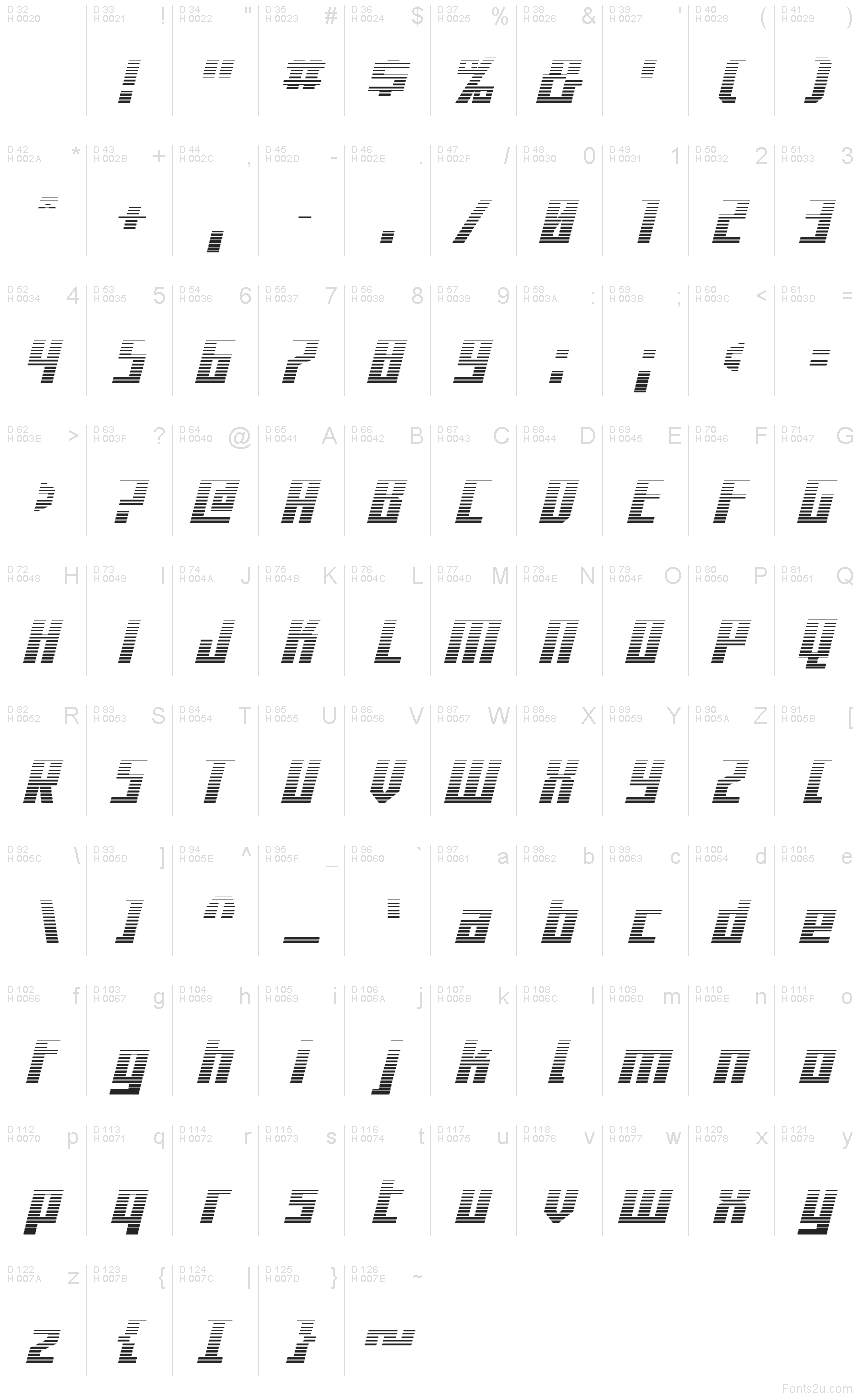
Capitol City Gradient
Capitol City Gradient font by Iconian Fonts is a bold, condensed techno display font with segmented and geometric influences. The curvy futuristic style is also retro-inspired, making it versatile and definitely stunning. In addition to typography variety, the collection includes matching horizontal line dividers perfect for graphics addition.